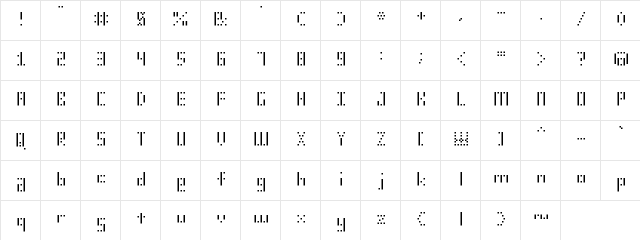
SMdot12y SMdot12y
Design Context for SMdot12y Typeface
SMdot12y celebrates the constraints of early digital type, turning pixel geometry into a distinctive and immediately recognisable style.
Well-suited to indie game interfaces, retro computing aesthetics, and pixel art-adjacent design work.